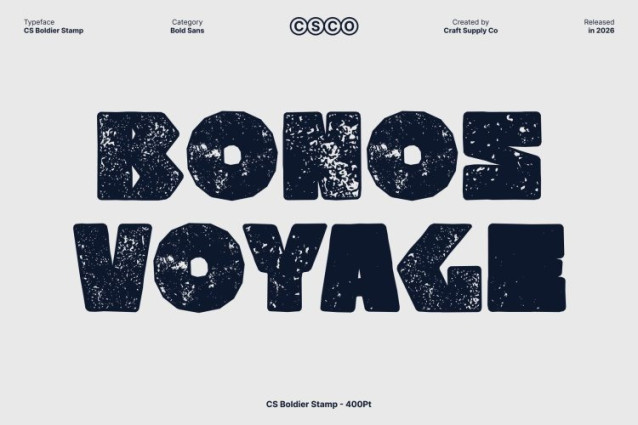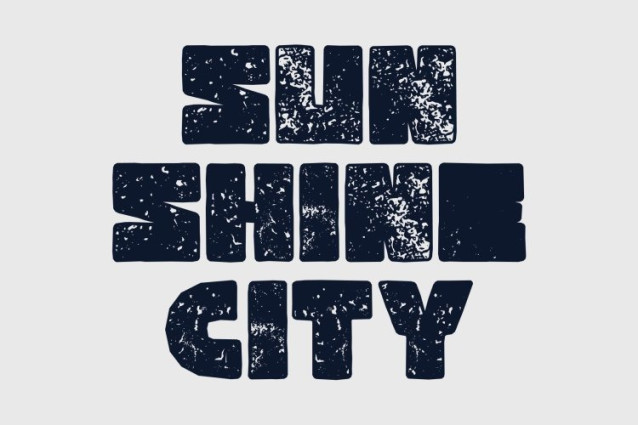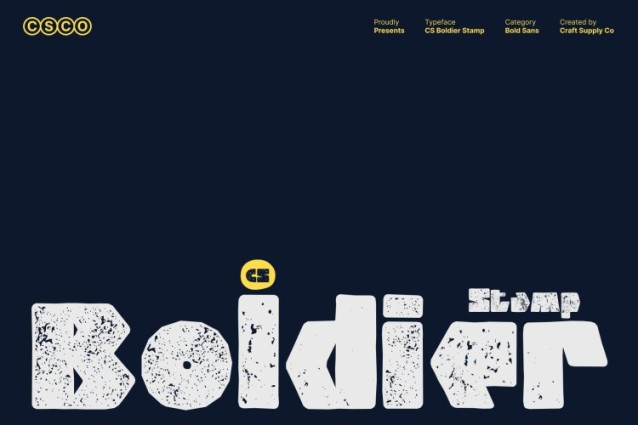
CS Boldier Stamp Font This is a bold display font built with thick, confident strokes and enhanced by a subtle stamped texture. The solid letterforms create immediate visual impact, while the textured finish adds a handcrafted, slightly imperfect edge that brings warmth and character.
Strong Presence That Demands Attention
Designed to stand out, this font delivers a commanding and energetic impression. Its heavy weight and bold construction make it ideal for headlines, banners, and large-scale typography where emphasis is essential. The stamped texture softens the boldness just enough to keep the font visually engaging rather than rigid, ensuring every word feels alive and dynamic.
Funky Style for Playful and Creative Projects
With its funky, daring appearance, this is perfect for creative projects that aim to feel fresh and unconventional. It works especially well for posters, music-related designs, youth branding, and expressive visual campaigns. The font’s bold shapes paired with textured detail communicate fun, confidence, and originality.
Versatile Boldness Across Modern Design
Despite its strong display nature, remains versatile across many design applications. From advertising and branding to digital layouts and event visuals, it adapts effortlessly while maintaining its bold character. This font strikes a perfect balance between creativity and clarity, making it a reliable choice for designers who want bold typography with unique stamped charm.